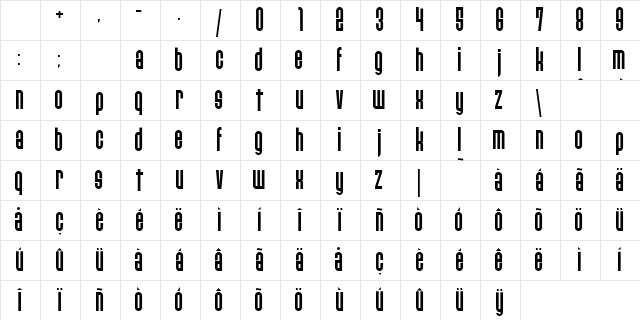
Complete Paulistana Ipe Regular glyph index. Displaying only characters natively supported by Paulistana Ipe Regular font.
Paulistana Ipe is a composed and adaptable typeface that performs quietly and consistently across a wide range of design contexts.